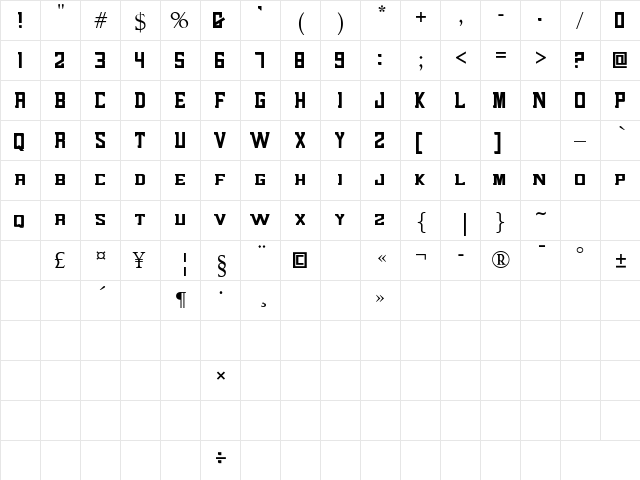
alenikh Regular Font Preview
alenikh Regular
alenikh Regular Font Details
Design Context for alenikh Typeface
alenikh is a composed and adaptable typeface that performs quietly and consistently across a wide range of design contexts.